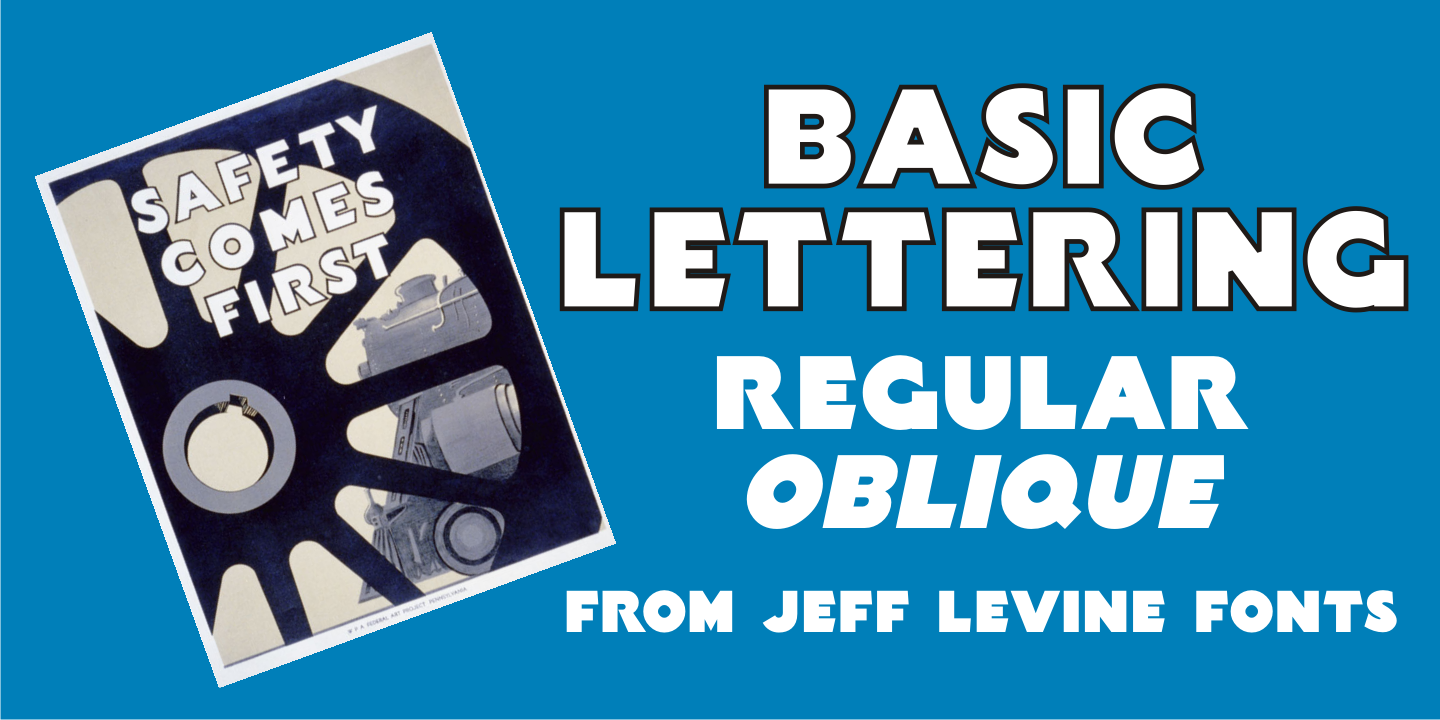
The Basic Lettering JNL Font excels in various design applications including fundamental lettering education branding, basic typography instruction materials, lettering practice workshop communications, traditional drafting service identities, basic sign making promotions, foundational design course signage, lettering fundamentals documentation, basic hand lettering materials, traditional typography education, and essential lettering projects that demand foundational authenticity and educational sophistication.
What makes the Basic Lettering JNL Font exciting is its essential embodiment of fundamental lettering principles and foundational typography education through letterforms that capture the essence of basic lettering instruction and the systematic approach of traditional letter formation. This typeface demonstrates exceptional clarity through carefully structured characters that suggest the methodical construction of basic letterforms, the educational progression of lettering skills, and the foundational knowledge that makes basic lettering so fundamentally important for typography education and design development. The font's educational personality makes it perfect for design schools and lettering instructors seeking to communicate foundational authenticity, educational clarity, and the kind of basic expertise that creates memorable lettering learning experiences through typography that literally teaches with fundamental precision.
The Basic Lettering JNL Font family typically includes foundational weight variations that enhance the educational aesthetic, featuring systematic styling options and extended character sets optimized for instructional communications and educational applications. These family options often include learning-inspired alternates, educational symbols, and foundational decorative elements that provide designers with comprehensive tools for creating authentically educational typography that celebrates lettering fundamentals while maintaining contemporary design appeal and instructional credibility.
Education professionals and lettering instructors consistently select Basic Lettering JNL Font Free Download for projects requiring typography that communicates foundational authenticity and educational sophistication. This typeface delivers exceptional performance in educational marketing, instructional branding, and foundational communications where establishing clarity and creating systematic learning atmosphere is essential for educational engagement. The font's basic character makes it particularly effective for instruction and practice applications. Download Basic Lettering JNL Font Free Download today to access this educationally fundamental typeface that transforms instructional communications with its foundational elegance and educational sophistication, creating compelling learning experiences that honor the magnificent importance of basic lettering while celebrating the systematic approach that defines authentic typography education and foundational lettering excellence.